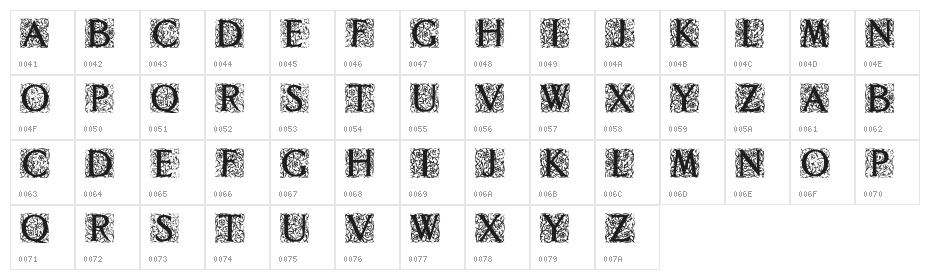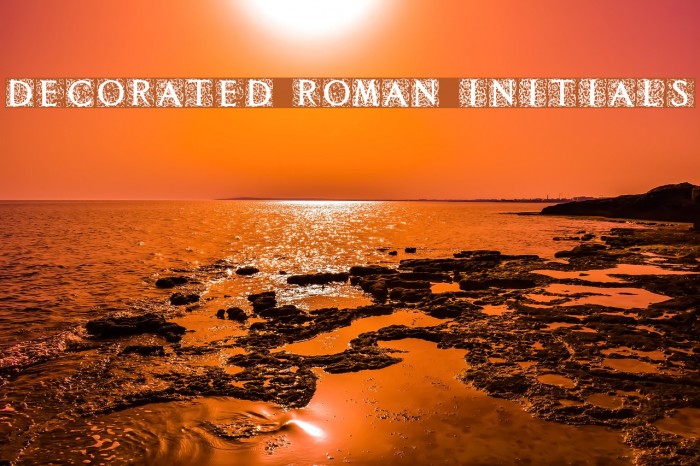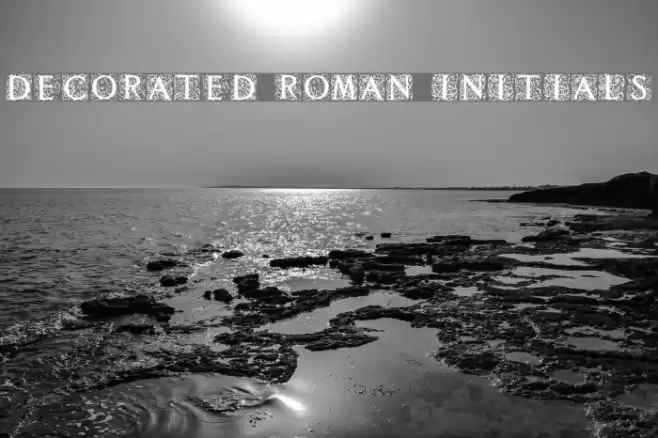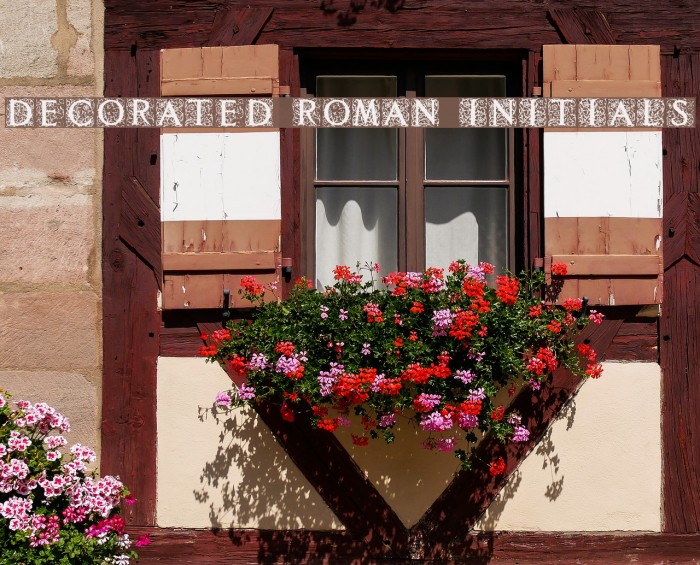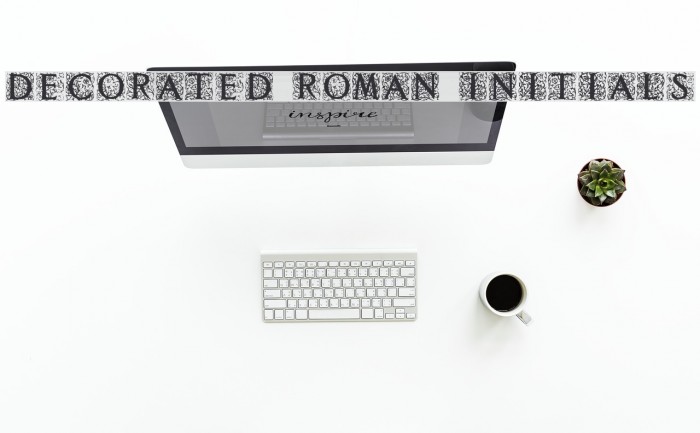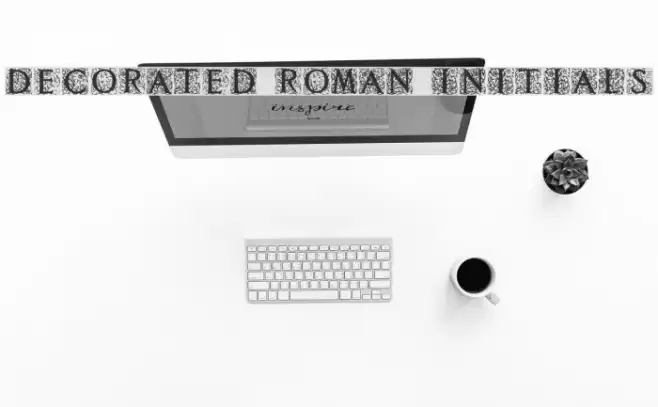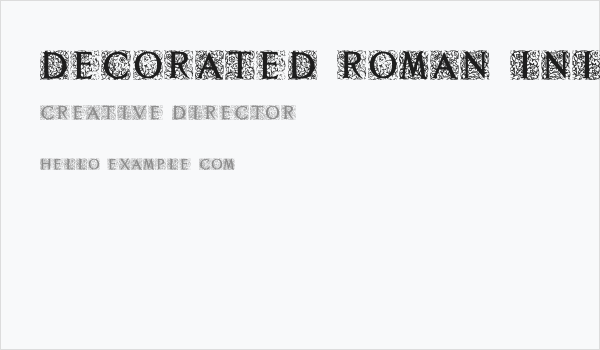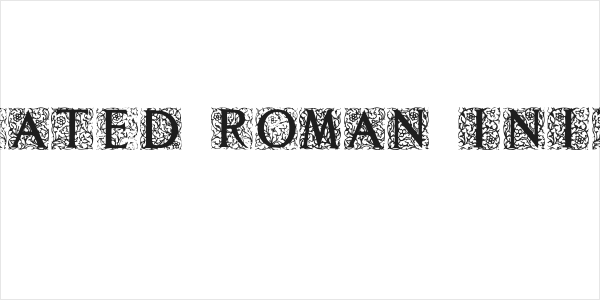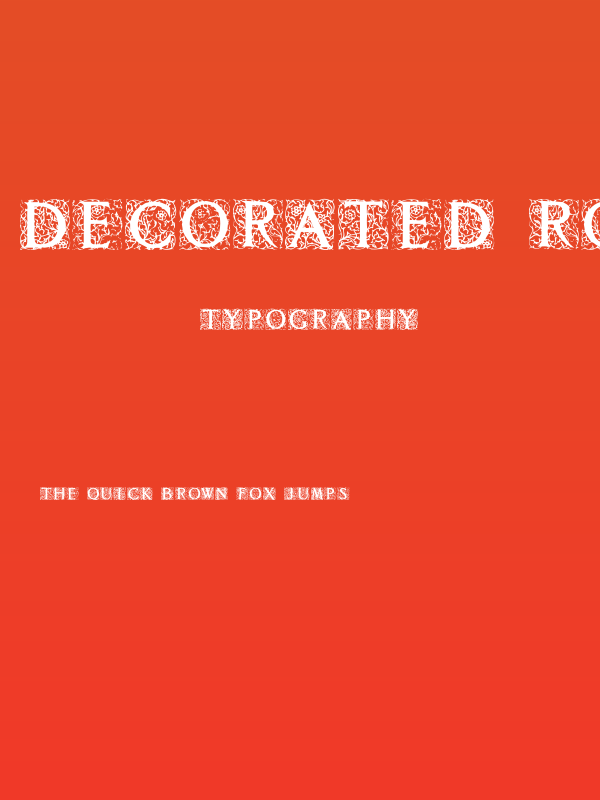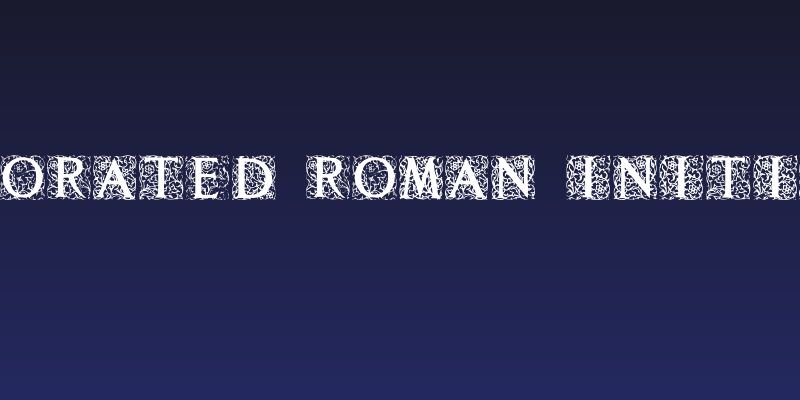
Decorated Roman Initials Font
Decorated Roman Initials Description
This font features ornate, decorative initials with intricate patterns filling each letter. The design is reminiscent of medieval manuscripts, where each character is encased in a square with elaborate flourishes and embellishments. The letters are bold and stand out against the detailed backgrounds, making them ideal for decorative purposes. The style is consistent across all characters, providing a cohesive look that is both artistic and historical. The intricate detailing within each letter suggests a high level of craftsmanship, making it suitable for projects that require a touch of elegance and tradition.
| Use Case | Logos, Headlines, Decorative elements |
| Proposed Projects | Ideal for use in invitations, certificates, book covers, and any project requiring a historical or elegant touch. |